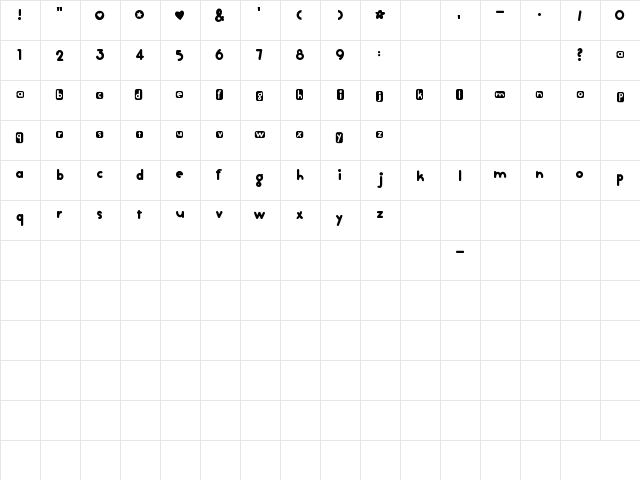
Chewy Stewy Regular
Design Context for Chewy Stewy Typeface
Chewy Stewy is a composed and adaptable typeface that performs quietly and consistently across a wide range of design contexts.